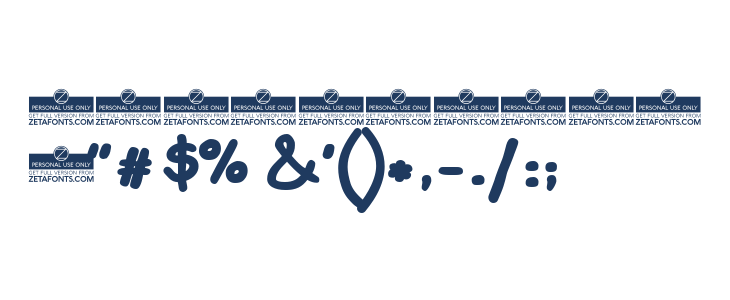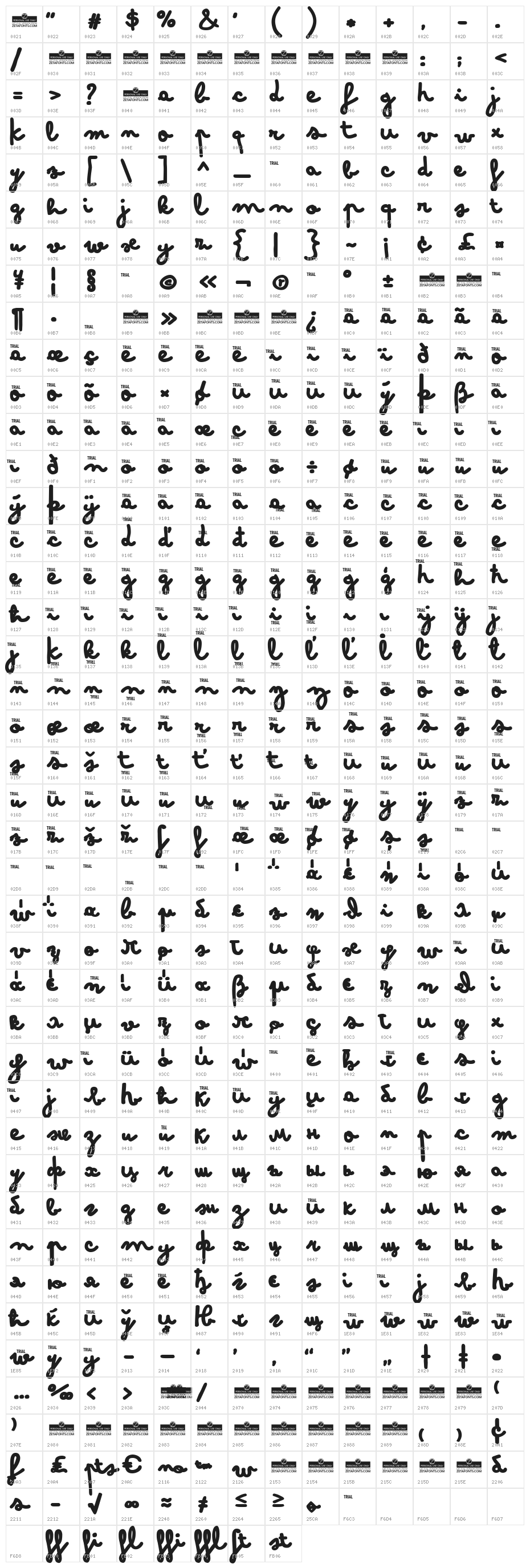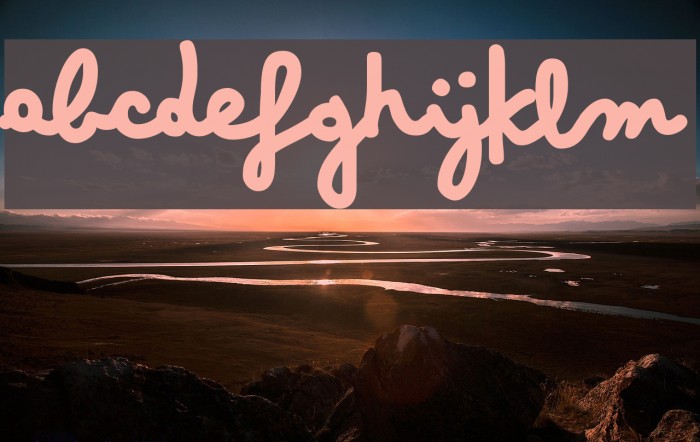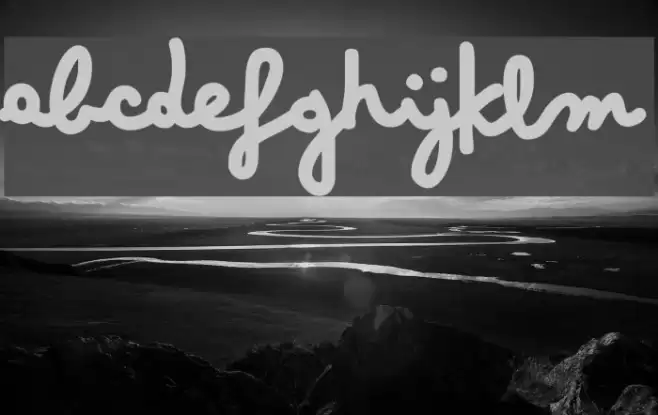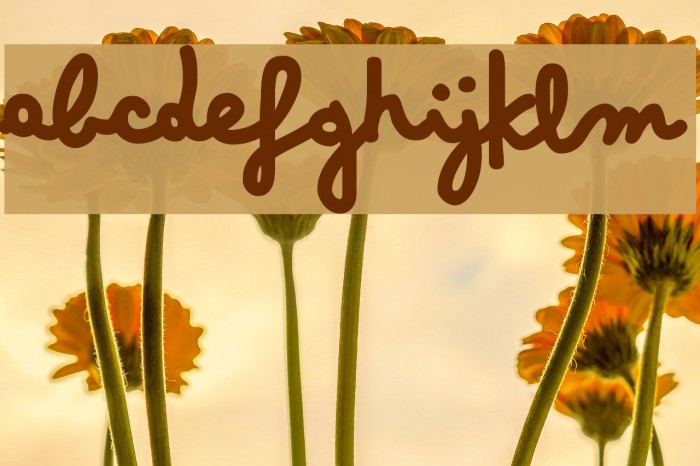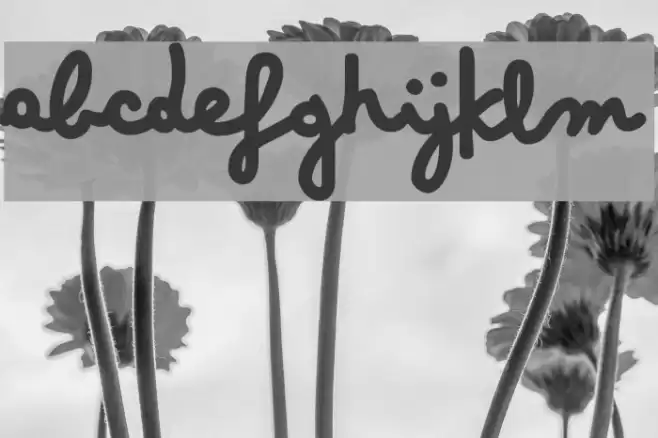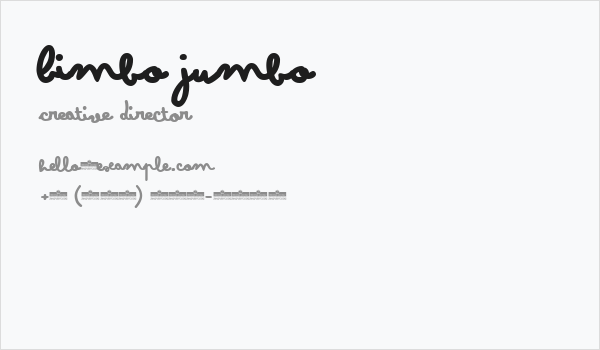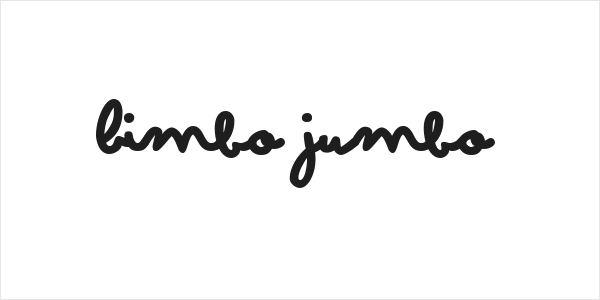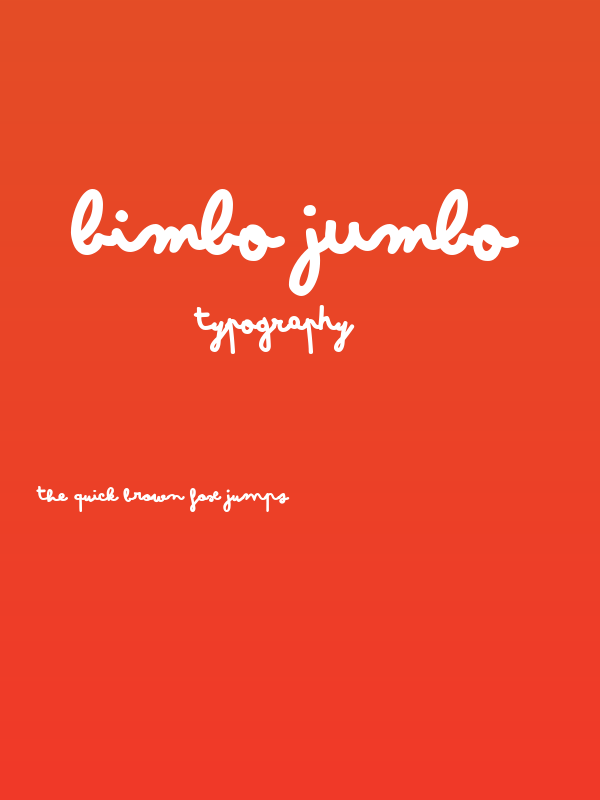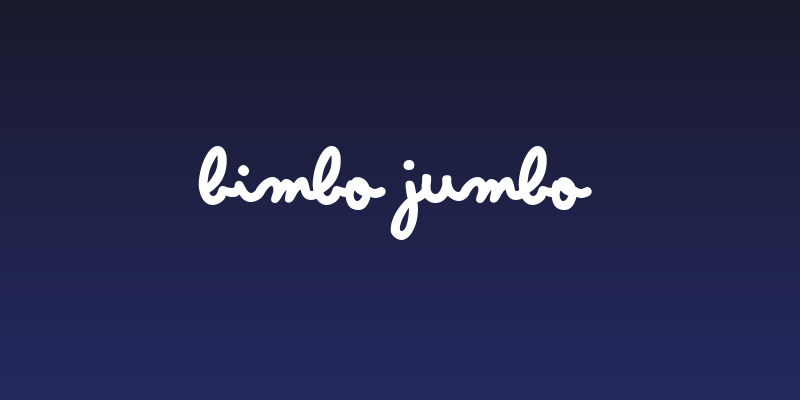
Bimbo Jumbo Font
Bimbo Jumbo Description
This playful and bold script font features a handwritten style with smooth, flowing curves and a lively character. The letters are interconnected, creating a seamless and dynamic appearance. The font has a casual and friendly vibe, making it suitable for projects that require a personal touch. The strokes are consistent in thickness, providing a uniform look across all characters. The special characters maintain the same playful style, adding versatility to the font's use.